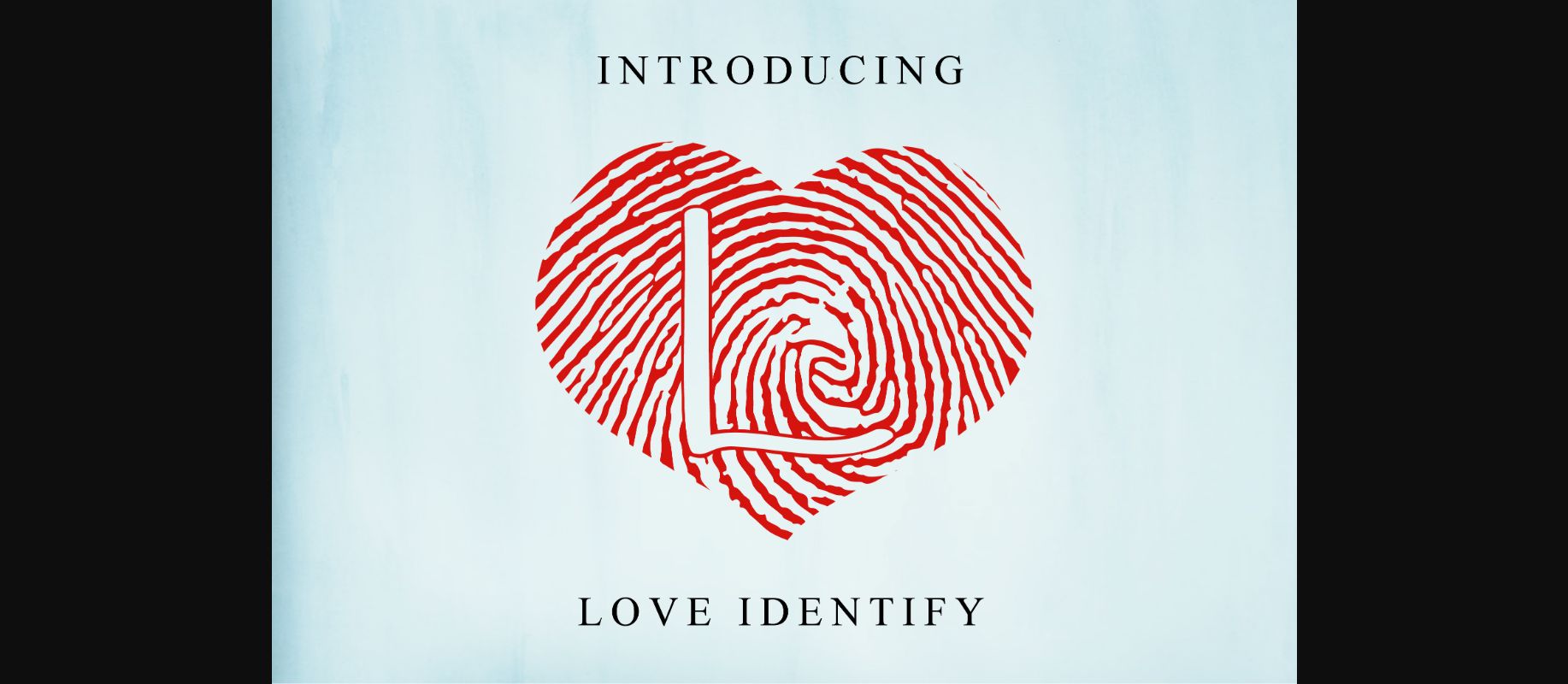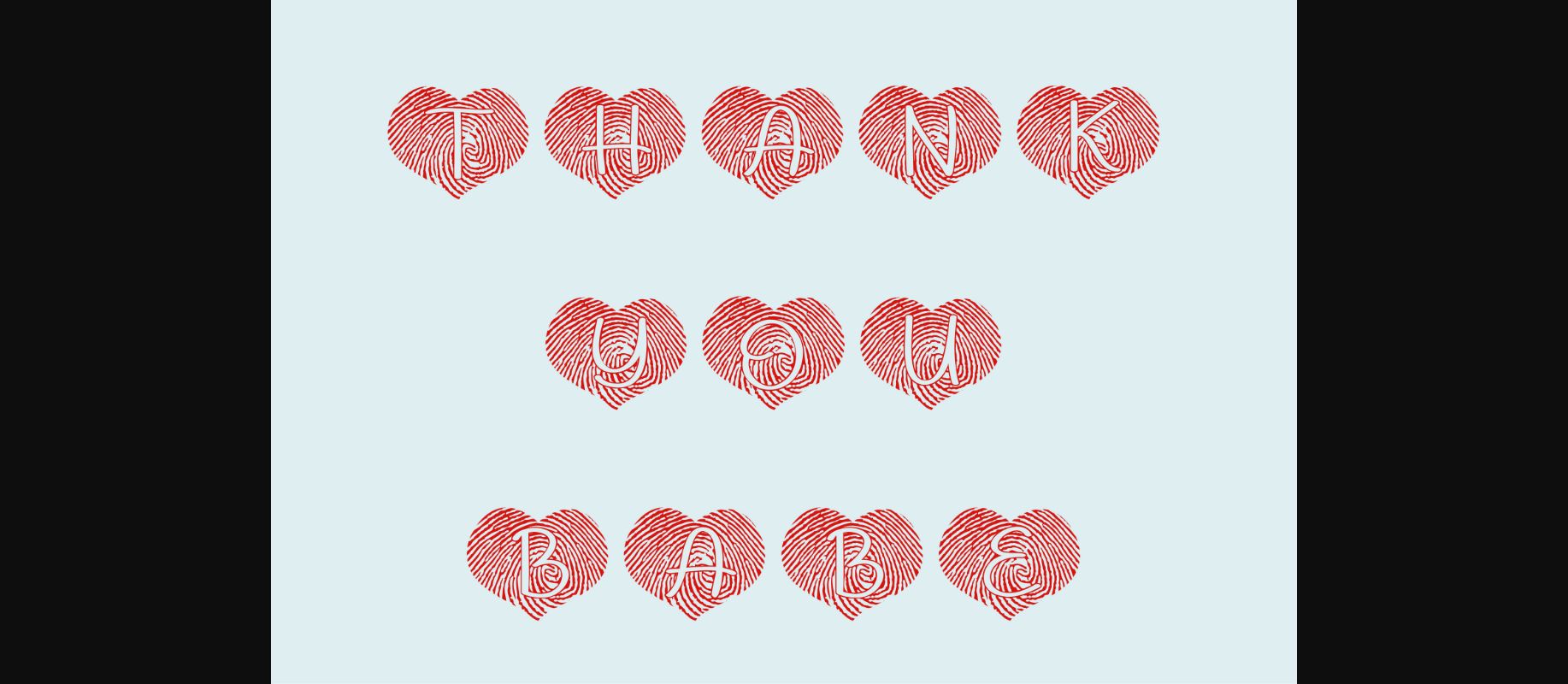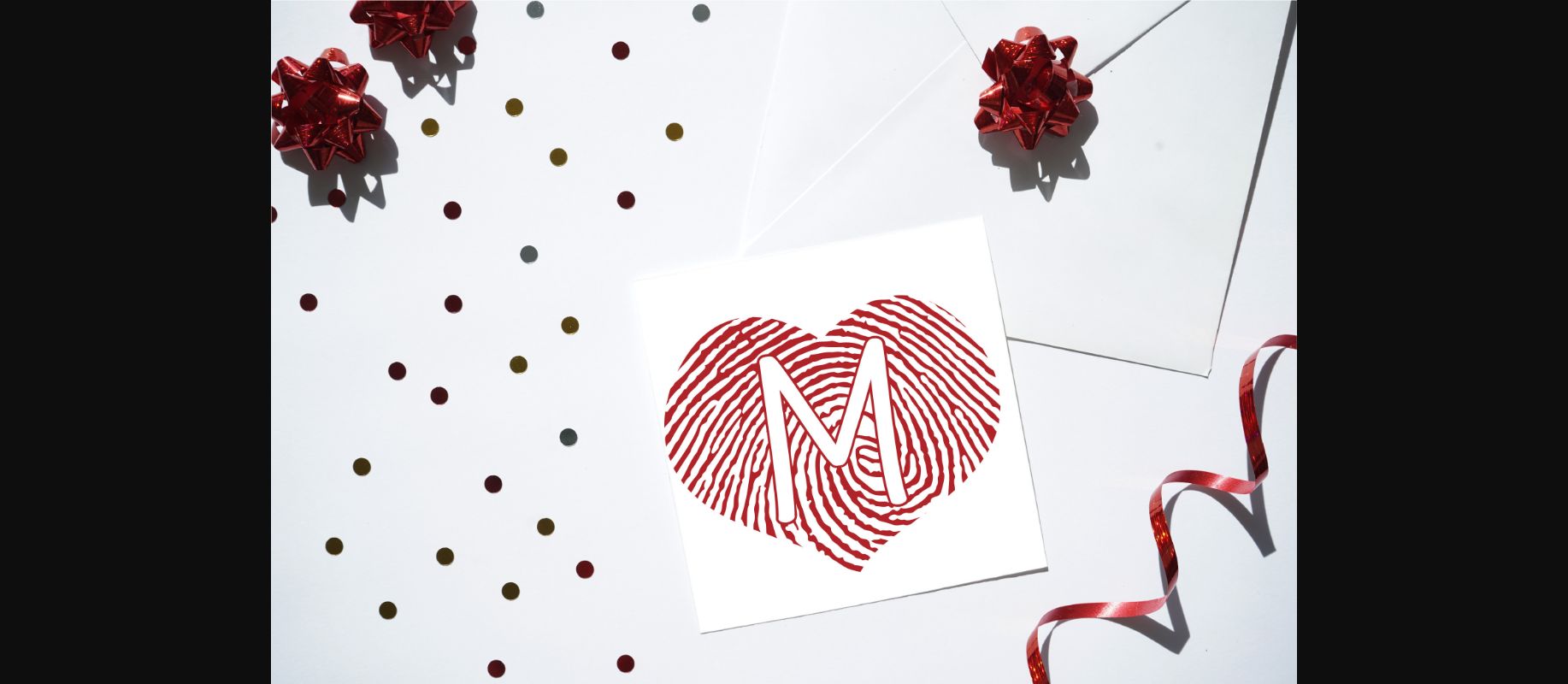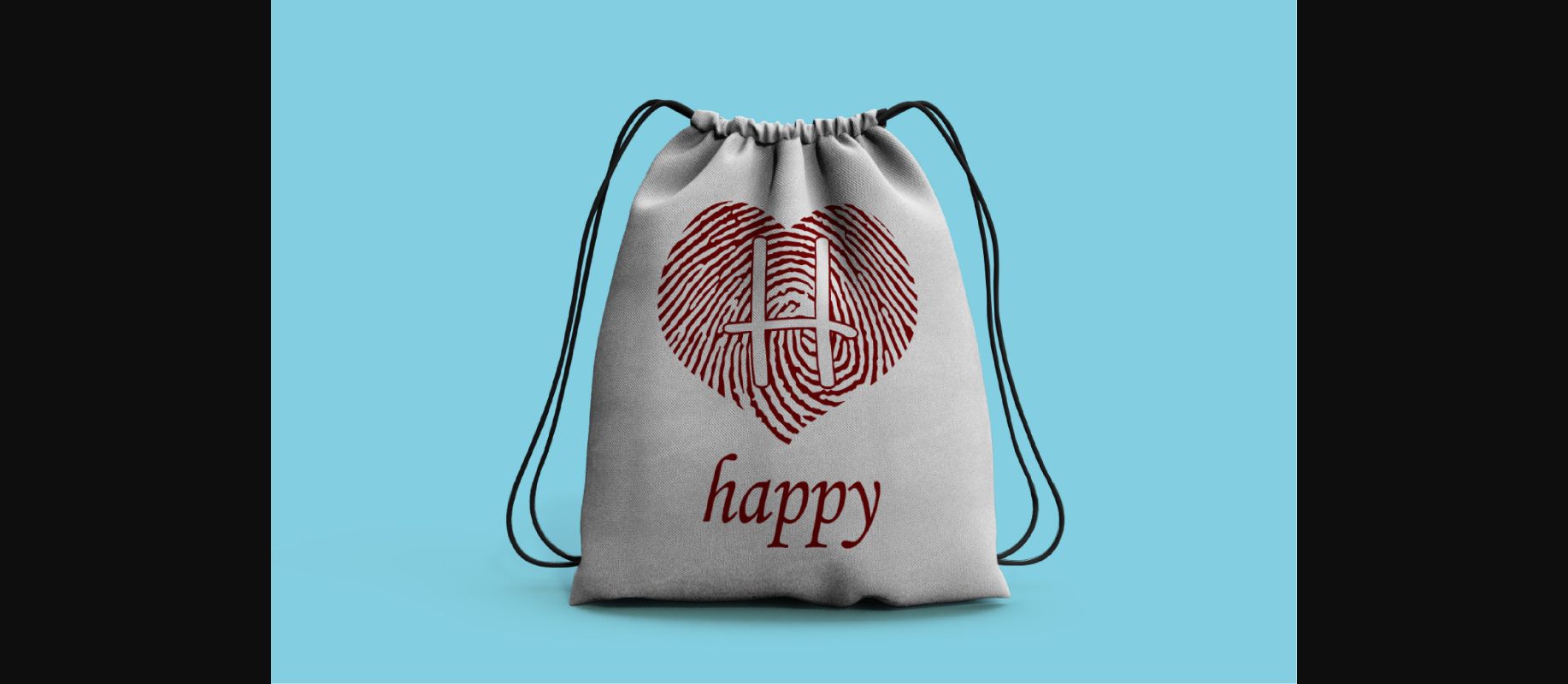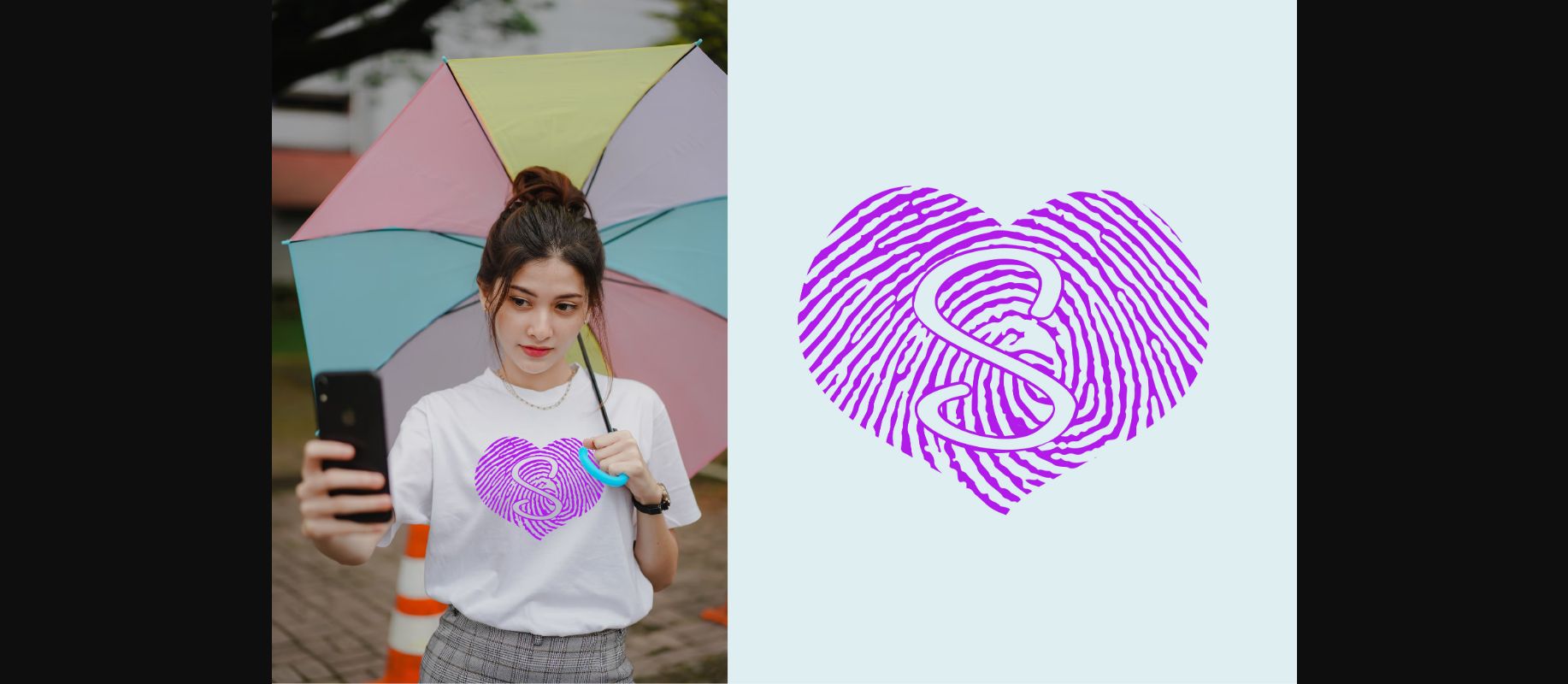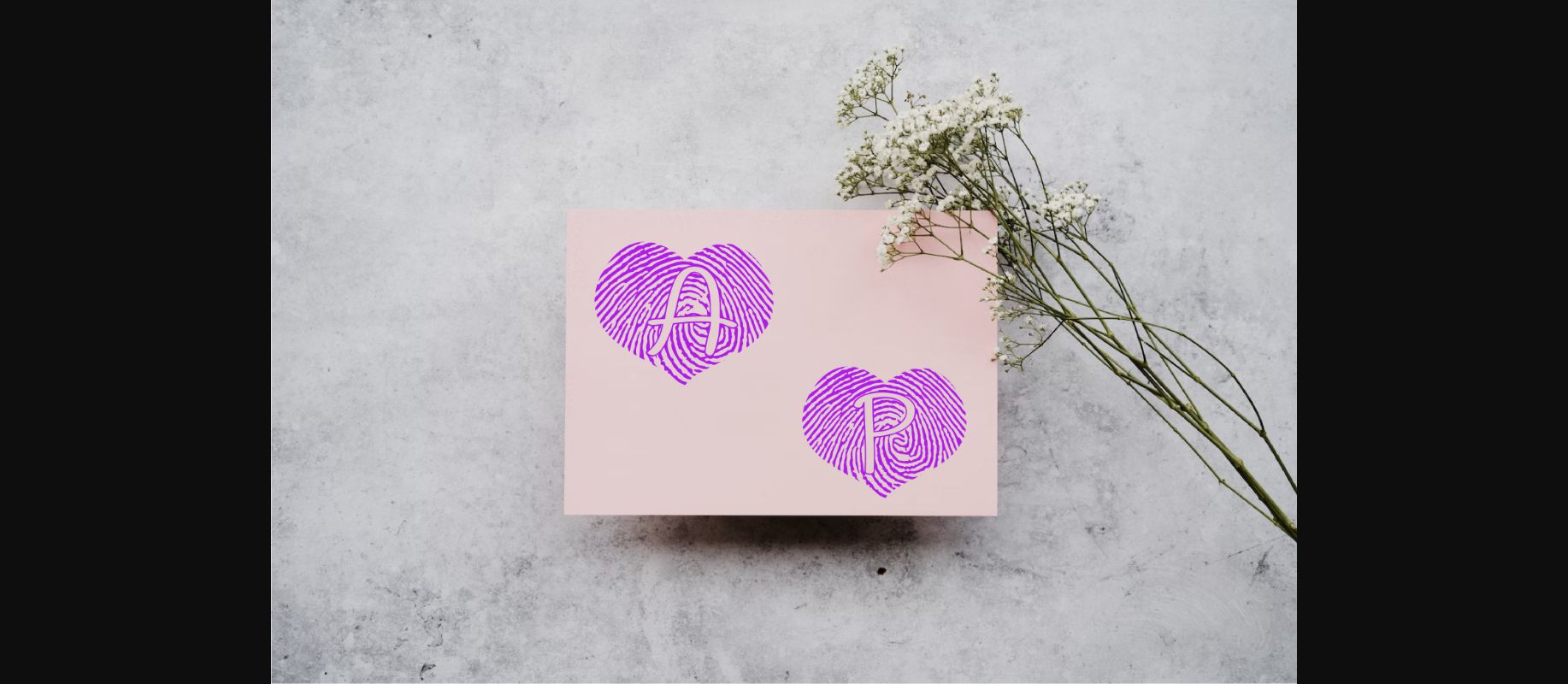
Love Identify Font
About Love Identify Font
Love Identify is a unique and beautiful monogram Valentine’s font. This font will beautifully complement your Valentine’s Cards, t-shirts, invitations, book covers, posters, etc.